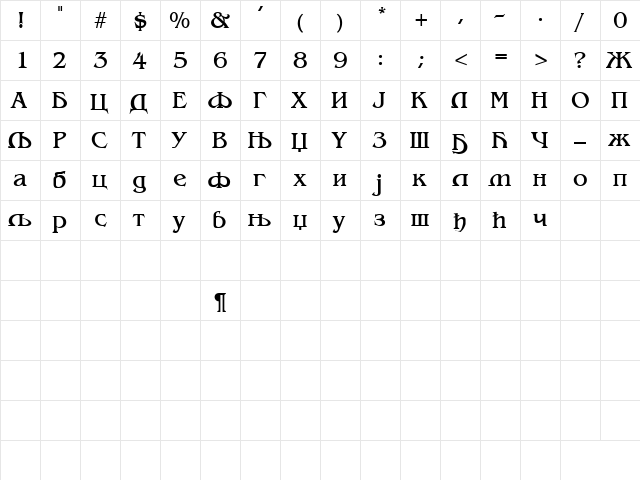
Bangkok Cirilica Regular
Design Context for Bangkok Cirilica Typeface
Bangkok Cirilica is a composed and adaptable typeface that performs quietly and consistently across a wide range of design contexts.